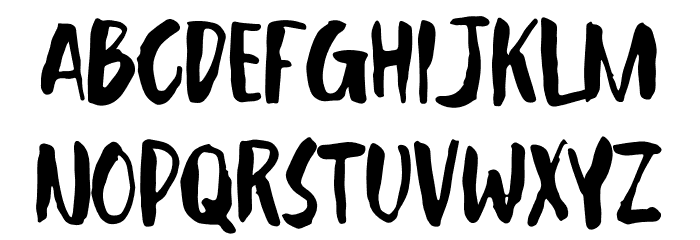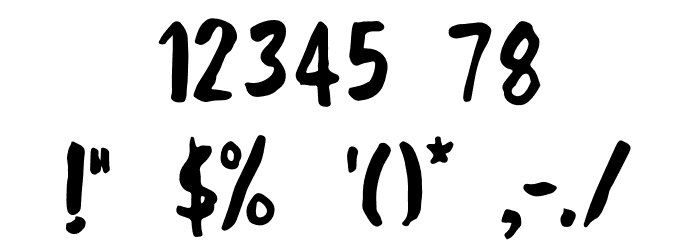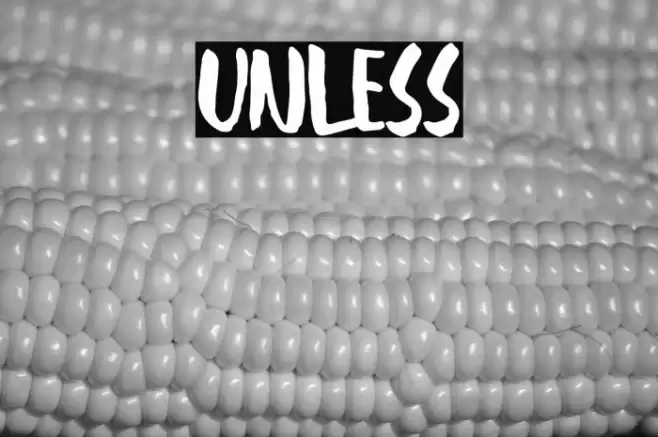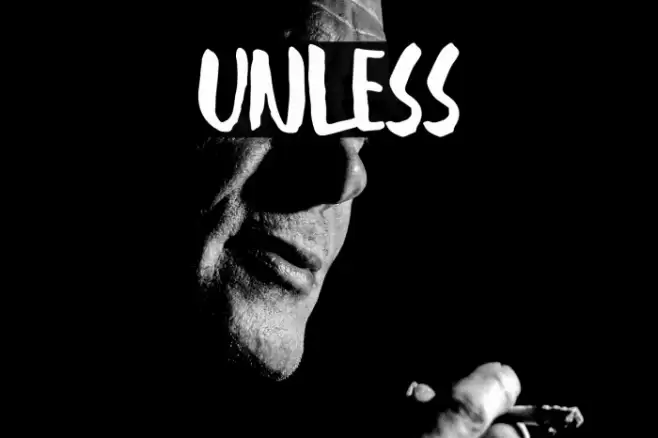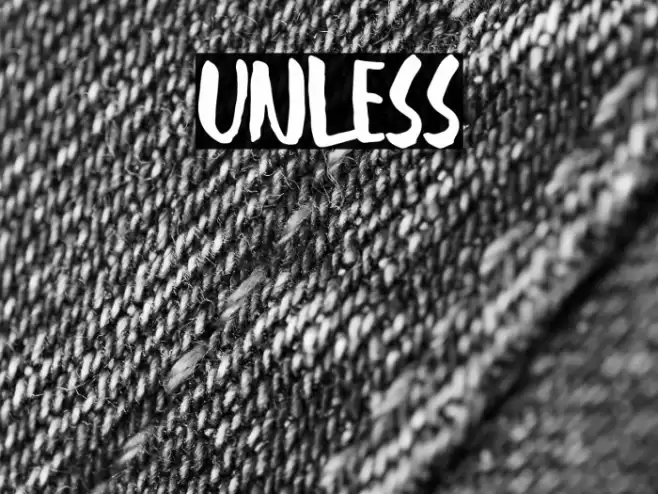
Unless Font
This font features a bold, handwritten style with a playful and artistic flair. The characters are unevenly weighted, giving a dynamic and energetic appearance. The strokes are thick and exhibit a brush-like texture, adding to its casual and informal aesthetic. The uppercase and lowercase letters maintain a consistent style, with rounded edges and slight variations in height and width, enhancing its organic feel. The numbers and special characters follow the same design principles, ensuring a cohesive look across all glyphs. This font is ideal for projects that require a personal touch or a creative, informal vibe.
A bold, handwritten font with a playful, brush-like texture.